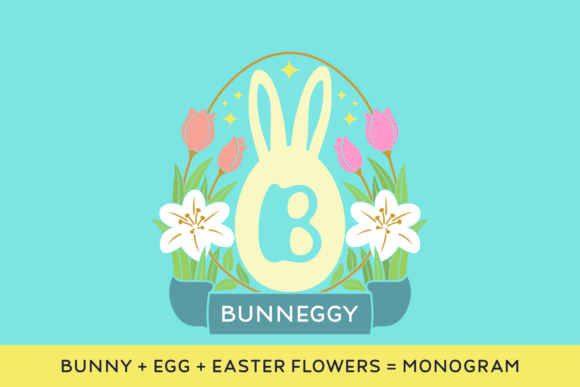
Introducing Bunneggy Font: A Joyful Splash of Charm for Your Creative Endeavors
In the realm of digital artistry, where fonts reign supreme as expressive tools, Bunneggy Font emerges as a captivating creation, promising to infuse your designs with a touch of cheer and delightful whimsy. This decorative font, crafted with meticulous attention to detail by the skilled hands of Situjuh, exudes an infectious charm that will leave an undeniable impact on your audience.
Unleash the magic of Bunneggy Font and transform your creations into masterpieces that radiate happiness and warmth. With its playful and jolly demeanor, this font breathes life into any project, be it cartoonish adventures, captivating children's games, or simply heartfelt quotes that demand attention. Let Bunneggy Font be your muse as you craft brand names that resonate, book covers that entice, and posters that demand admiration.
Step into a world where beauty knows no bounds and creativity knows no limits. Bunneggy Font stands ready to accompany you on this artistic journey, adding a touch of delight to every stroke of your imagination. Whether you're a seasoned designer seeking inspiration or a budding artist discovering the power of fonts, Bunneggy Font promises to be your faithful companion, guiding you towards design brilliance.
So, embrace the whimsical allure of Bunneggy Font and let your creations dance with joy. With endless possibilities at your fingertips, it's time to embark on a design adventure like never before. Bunneggy Font awaits, ready to transform your artistic vision into a symphony of delight.